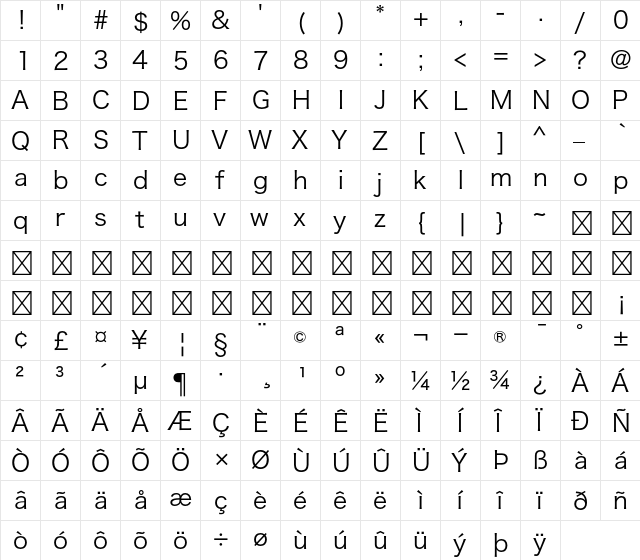
Hiragino Kaku Gothic Pro W3
| Foundry | Dainippon Screen Mfg. Co., Ltd. |
| Designer | JIYUKOBO Ltd. |
Design Context for Hiragino Kaku Gothic Pro Typeface
Hiragino Kaku Gothic Pro takes a clean, functional approach — its unadorned letterforms prioritise legibility and work reliably across screen and print environments.
Font Pairing: Works well alongside a characterful serif or display font that can carry the expressive load while Hiragino Kaku Gothic Pro handles the functional copy.
Pro Tip: Pair Hiragino Kaku Gothic Pro with a display or serif font for headlines — its neutral character makes it an excellent supporting player in complex typographic systems.